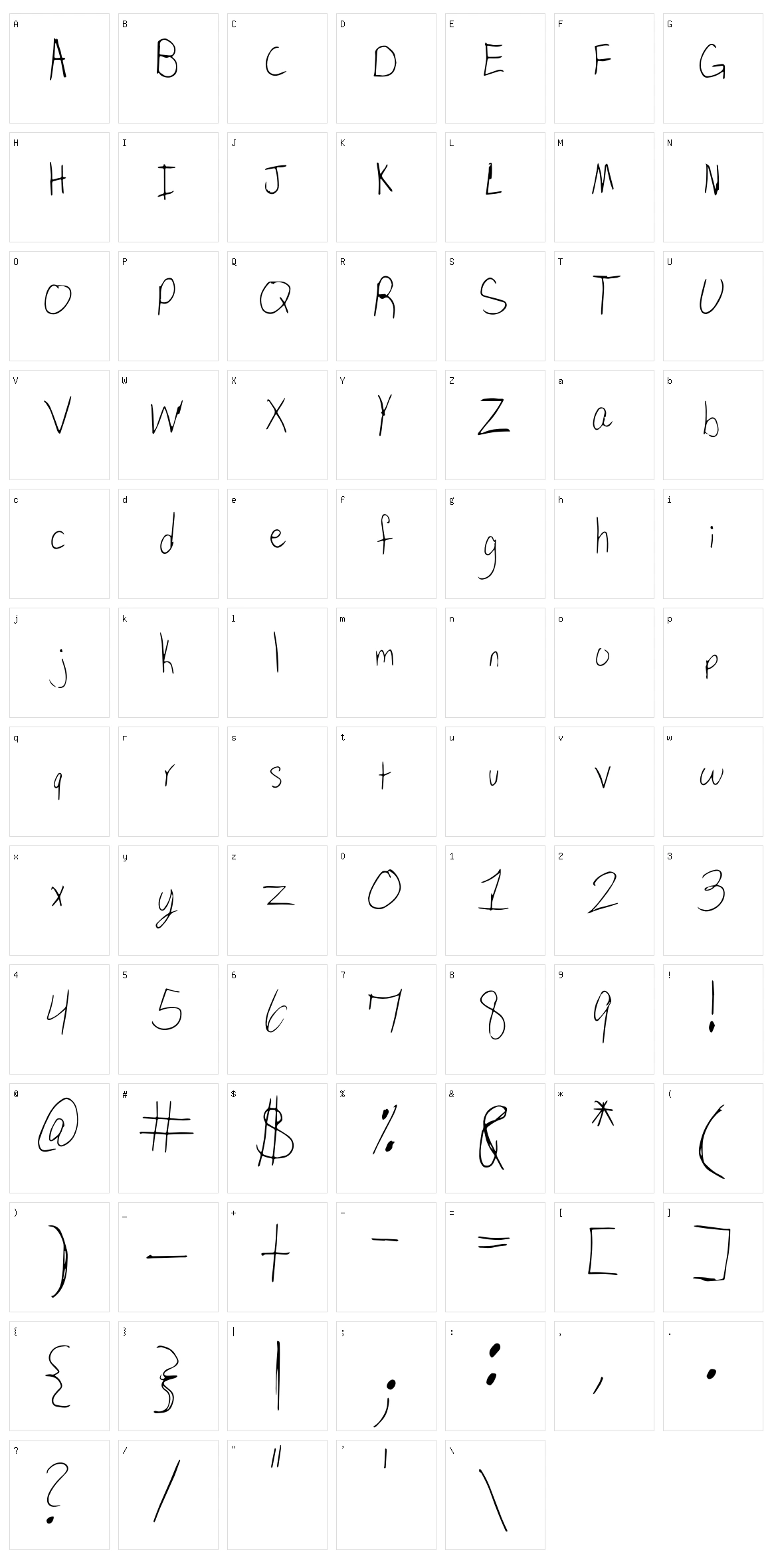
The free font SP Dear Mom is carefully designed by Sizzleprint, showcasing a thoughtful balance of creativity and usability and falls under the Script font style. When you download the ZIP file, it contains only 1719.69 KB of font files, making it lightweight and quick to download. Please review the license details below to understand permitted usage and distribution rights. If license information is not available, we recommend using this font for personal projects only or contacting the author directly for commercial usage permissions.